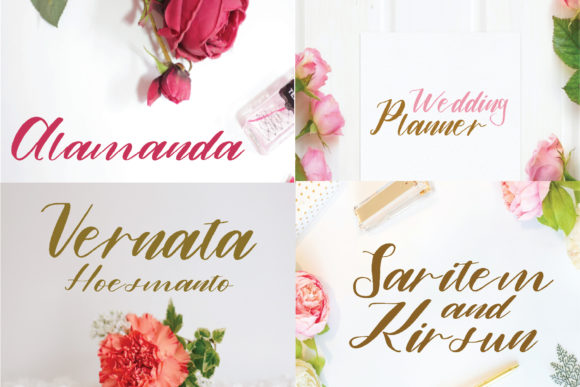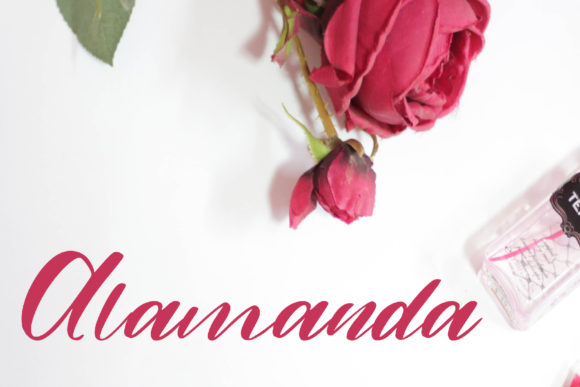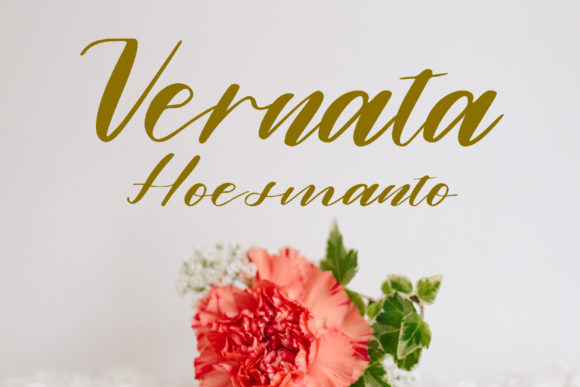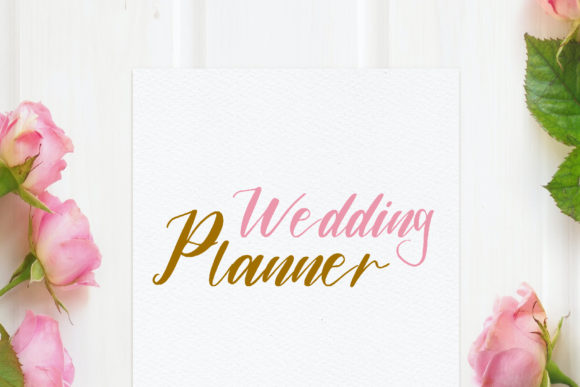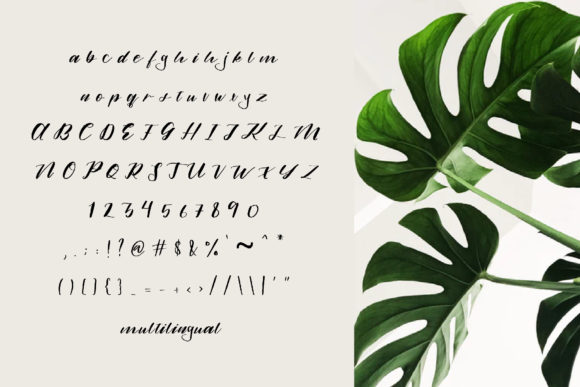
Alamanda: Embrace the Exquisite Charm of a Masterfully Handwritten Font
Allow us to introduce Alamanda, a font that exudes an exquisite charm, leaving a lasting impression as it gracefully dances across the page. Its impeccable design makes it a true favorite for designers and creatives alike. This font seamlessly blends the elegance of classic calligraphy with a contemporary and fresh feel, making it a timeless addition to any project. Prepare to be captivated by its allure and fall in love with its beauty, taking your creative endeavors to the highest levels!
The beauty of Alamanda lies in its ability to strike the perfect balance between timeless and modern. As the ink flows from the pen, it retains the classic calligraphic influences that have enchanted hearts for generations, while also embracing a fresh and contemporary touch that breathes new life into every letter.
Designing with Alamanda is a delightful experience. Whether you’re crafting wedding invitations, heartfelt love letters, or artistic prints, this font brings an air of sophistication that elevates your work to new heights. Each stroke carries a sense of poetry, turning your projects into true works of art.
Its versatility shines through in every aspect of your creative journey. Alamanda effortlessly adapts to various themes and styles, be it a whimsical fairy tale or a sleek and modern design. The font’s adaptability makes it an indispensable tool for expressing your unique vision.
Expressing gratitude or sharing profound thoughts becomes an enchanting experience with Alamanda. Thank you cards become heartfelt gestures, and inspirational quotes turn into pearls of wisdom that resonate with readers on a deeper level.
When it comes to branding and logo design, Alamanda proves its mettle. Its classy yet contemporary nature leaves a lasting mark, ensuring your brand identity stands out in the crowd. It communicates professionalism and creativity, making it the perfect choice for businesses aiming to leave a lasting impression.
For any project that demands a touch of elegance and finesse, Alamanda is the answer. From brochures to social media graphics, from book covers to product packaging, this font effortlessly enhances the visual appeal, adding a touch of sophistication that draws attention and admiration.
In conclusion, Alamanda is a font that deserves to be cherished and embraced. Its exquisite charm, blended with contemporary flair, sets it apart as a true masterpiece. Fall in love with its timeless beauty, and let it become your creative muse. Unlock the full potential of your projects with Alamanda, and witness how it transforms your work into an extraordinary display of elegance and grace.